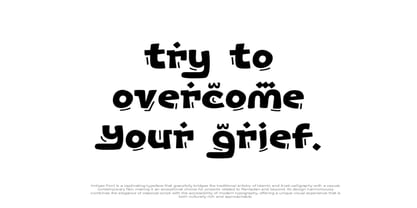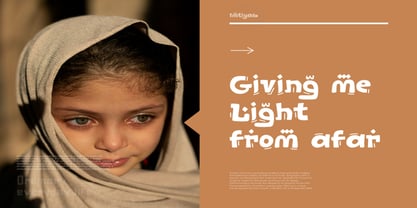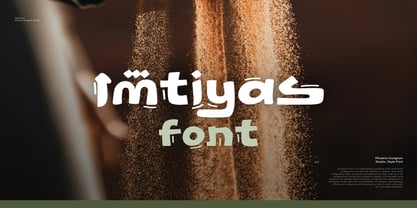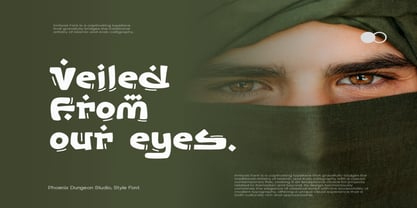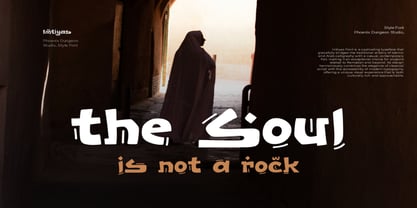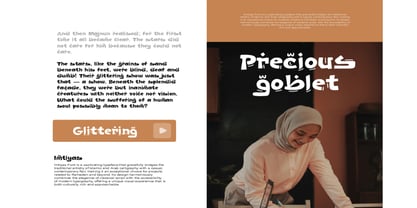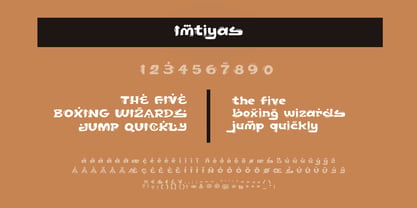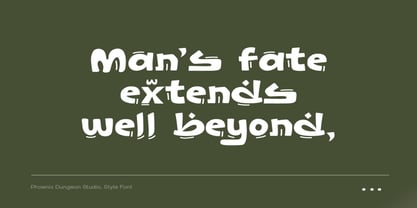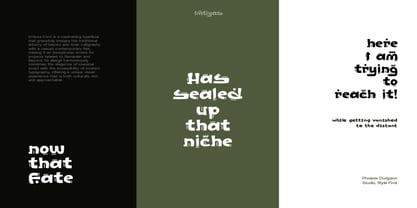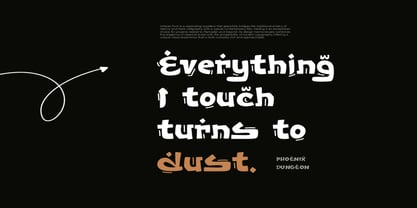
Imtiyas
by Phoenix Group
The Imtiyas Font Family was designed by Alif Naufal Muzakki and published by Phoenix Group. Imtiyas contains 1 styles. More about this family
Imtiyas Font is a captivating typeface that gracefully bridges the traditional artistry of Islamic and Arab calligraphy with a casual, contemporary flair, making it an exceptional choice for projects related to Ramadan and beyond. Its design harmoniously combines the elegance of classical script with the accessibility of modern typography, offering a unique visual experience that is both culturally rich and approachable.
Designers: Alif Naufal Muzakki
Foundry: Phoenix Group